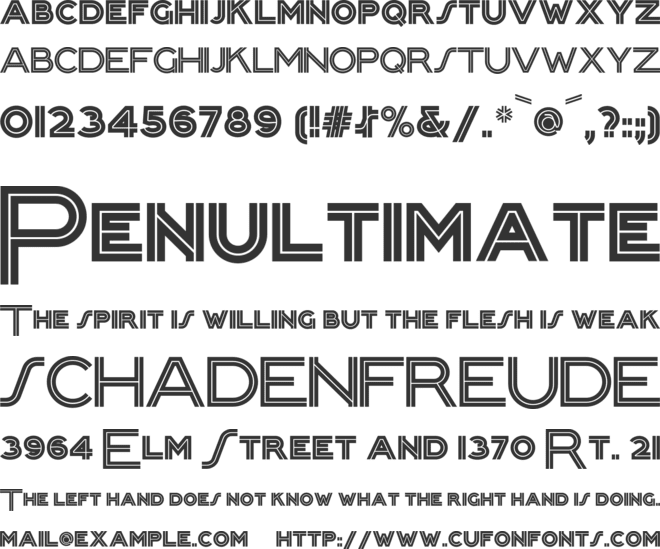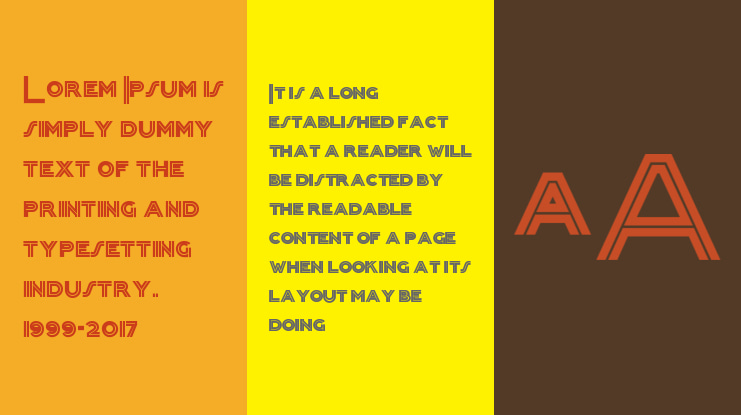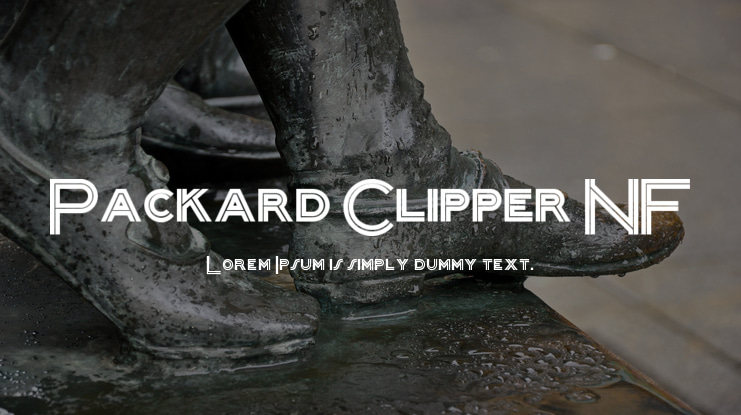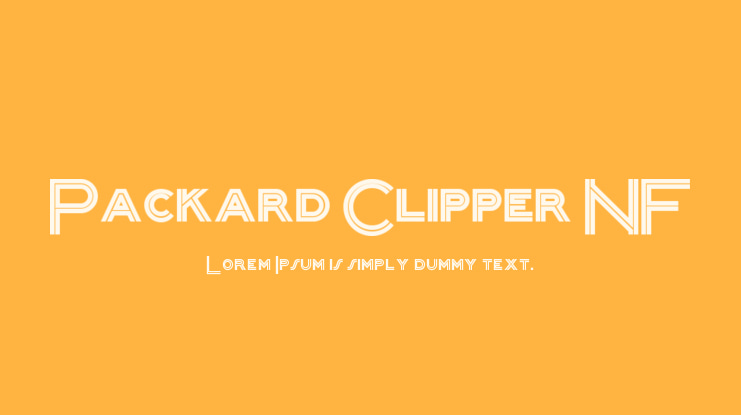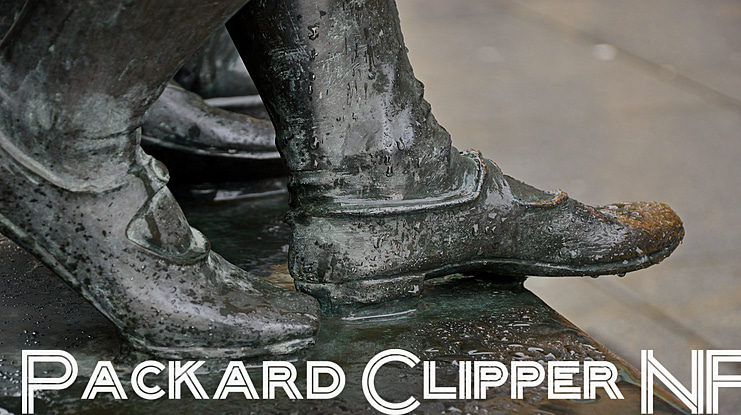
A different car, but the same idea: this typeface is patterned after lettering discovered on an 1925 French poster for Citroën automobiles, designed by Pierre Louys. The half-height small caps nest nicely with the caps, creating some interesting headlines.